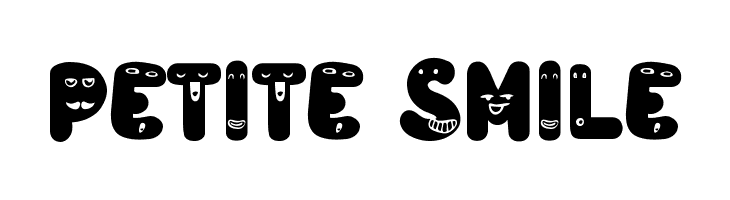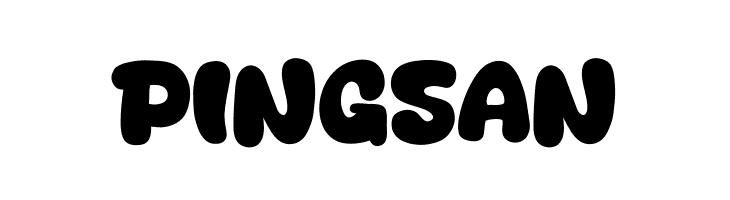
A bold, playful font with a whimsical, retro aesthetic.
A playful, bold font with rounded, irregular shapes for a whimsical feel.
A playful, bold font with a hand-drawn, whimsical style.
A playful, bold font with rounded, thick strokes and a friendly appearance.
A bold, angular font with unique cutouts and an artistic, edgy style.
A playful, bold font with rounded, bubbly characters and a friendly aesthetic.
A playful, hand-drawn font with bold, rounded characters and a whimsical style.
A playful, bold font with thick, rounded letters and a whimsical style.
A bold, cartoonish font with playful and exaggerated curves.
A bold, playful font with rounded, hand-drawn characters.